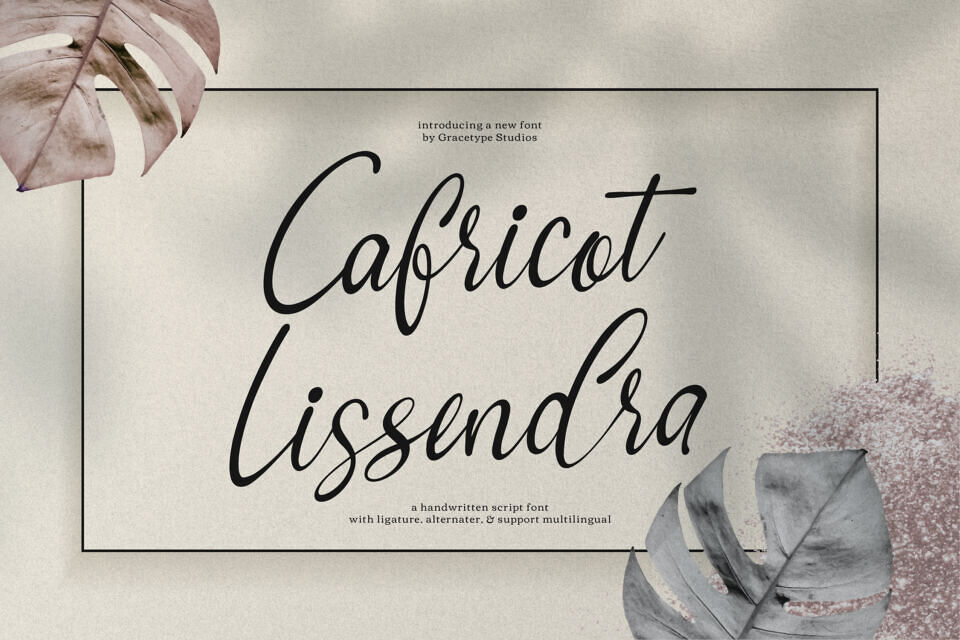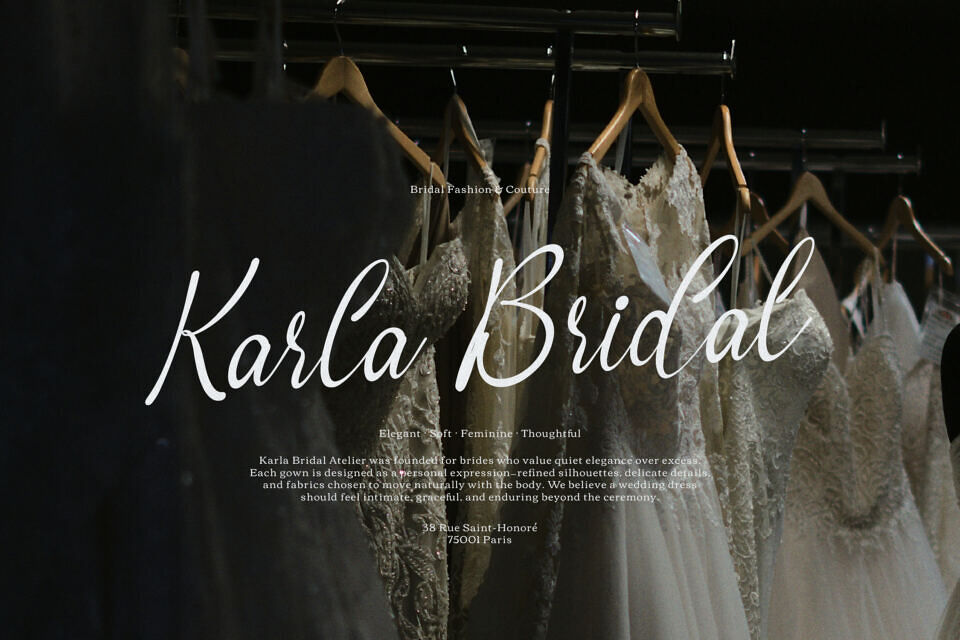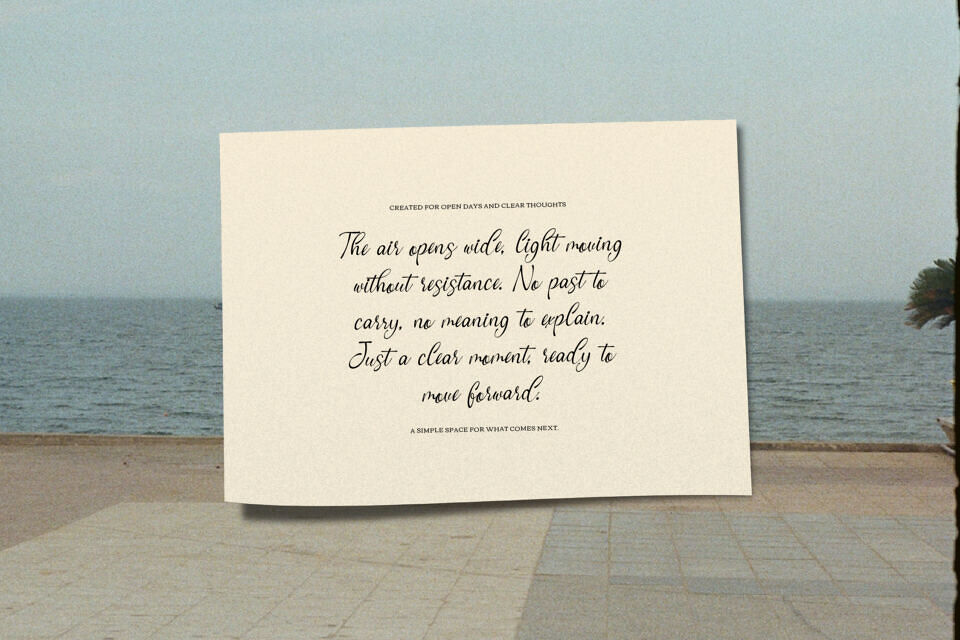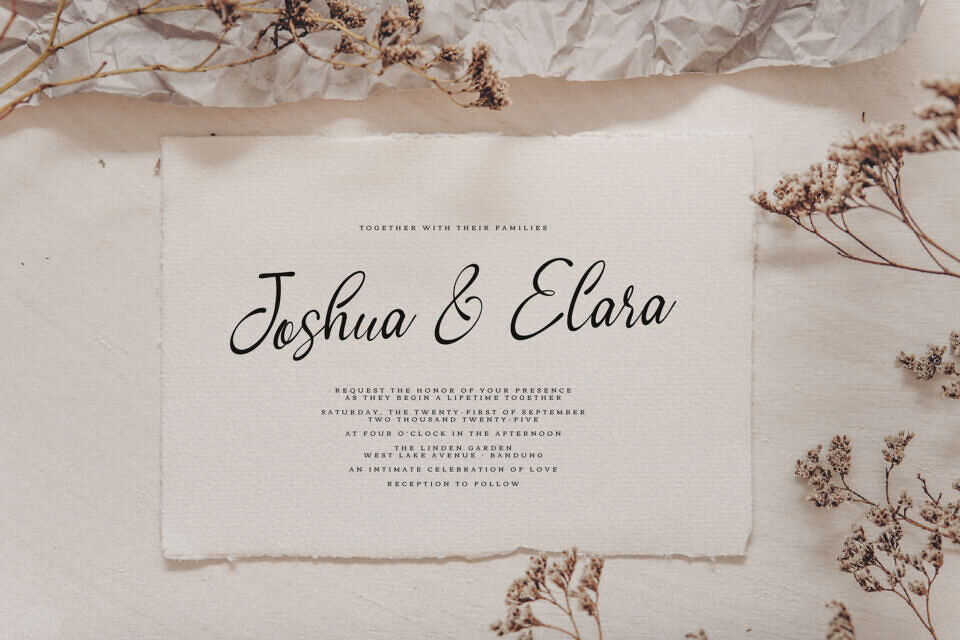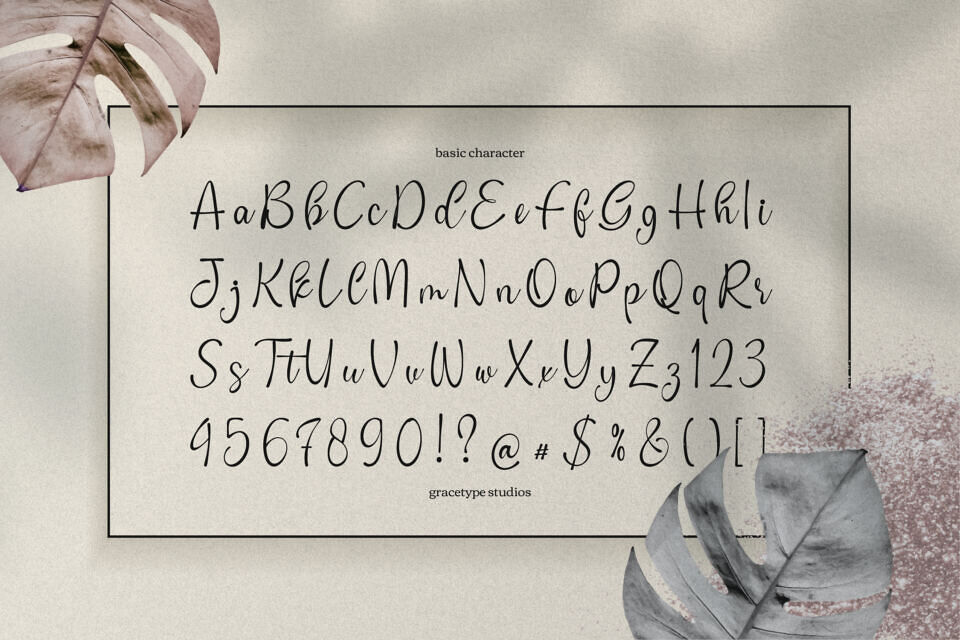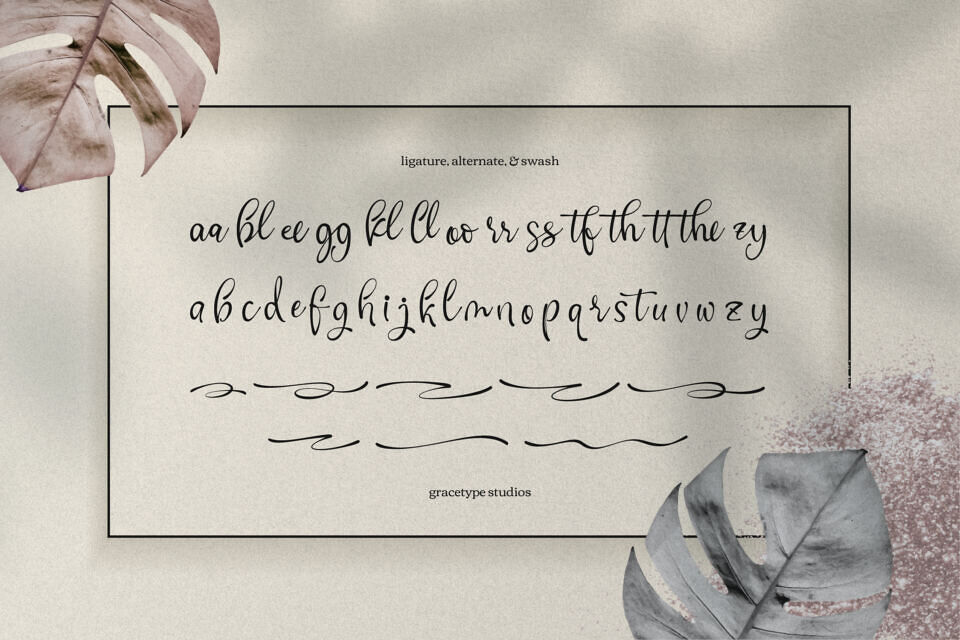
Cafricot Lissendra Font
Cafricot Lissendra, a handwritten script font by Gracetypestudio, is versatile and ideal for various design projects, including logos, branding, product packaging, and more. It adds a touch of elegance to items like mugs, posters, and greeting cards, making it perfect for special events and everyday designs that require a personal, scripted feel.